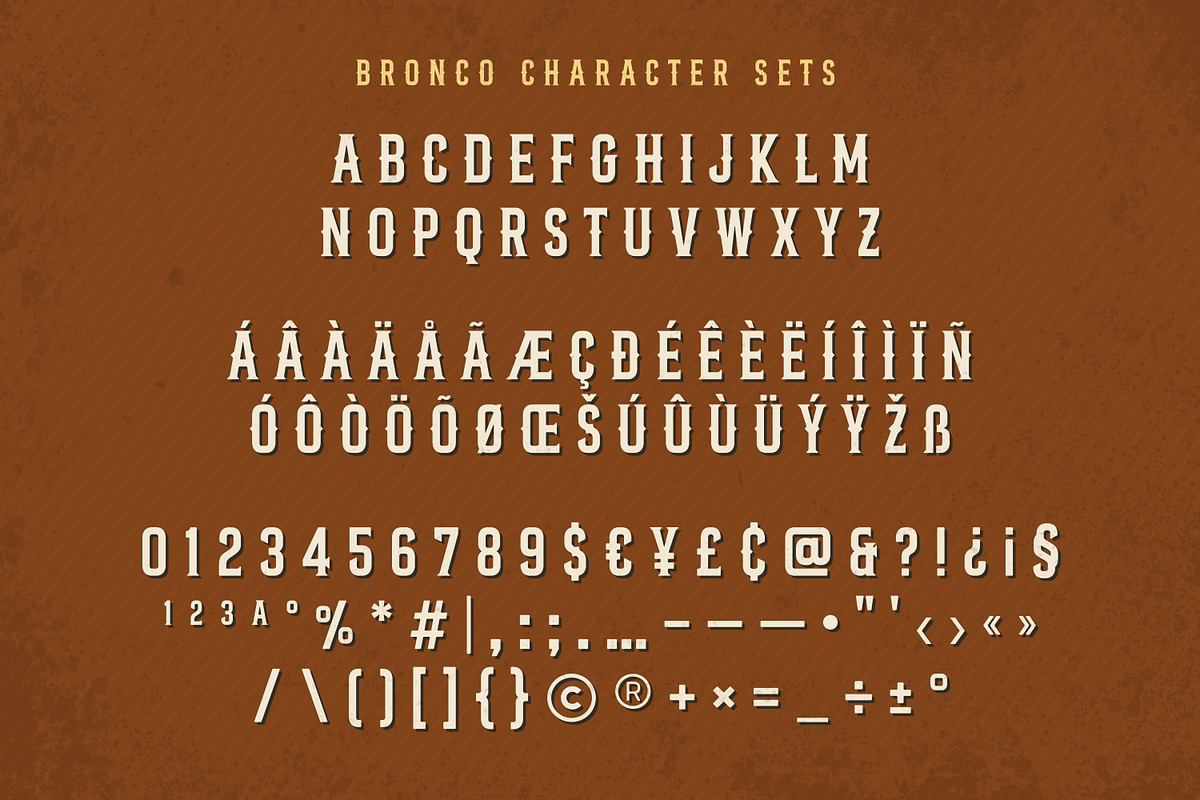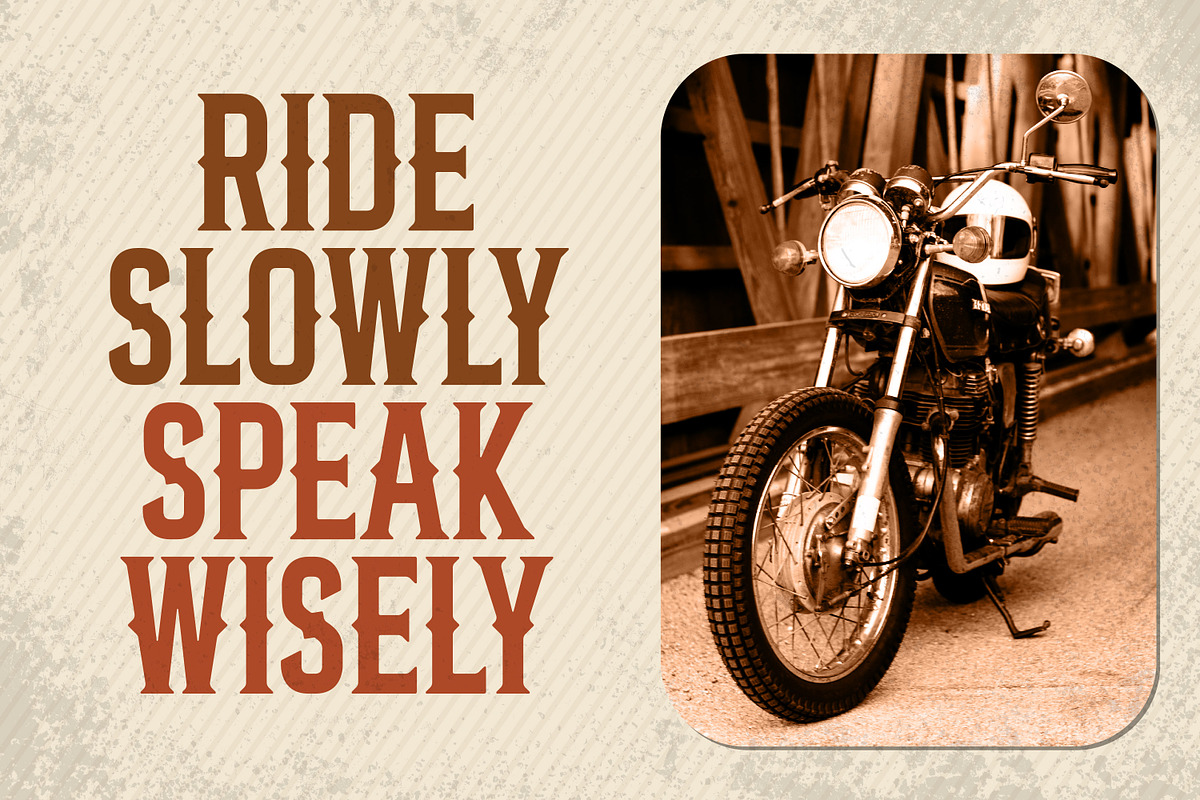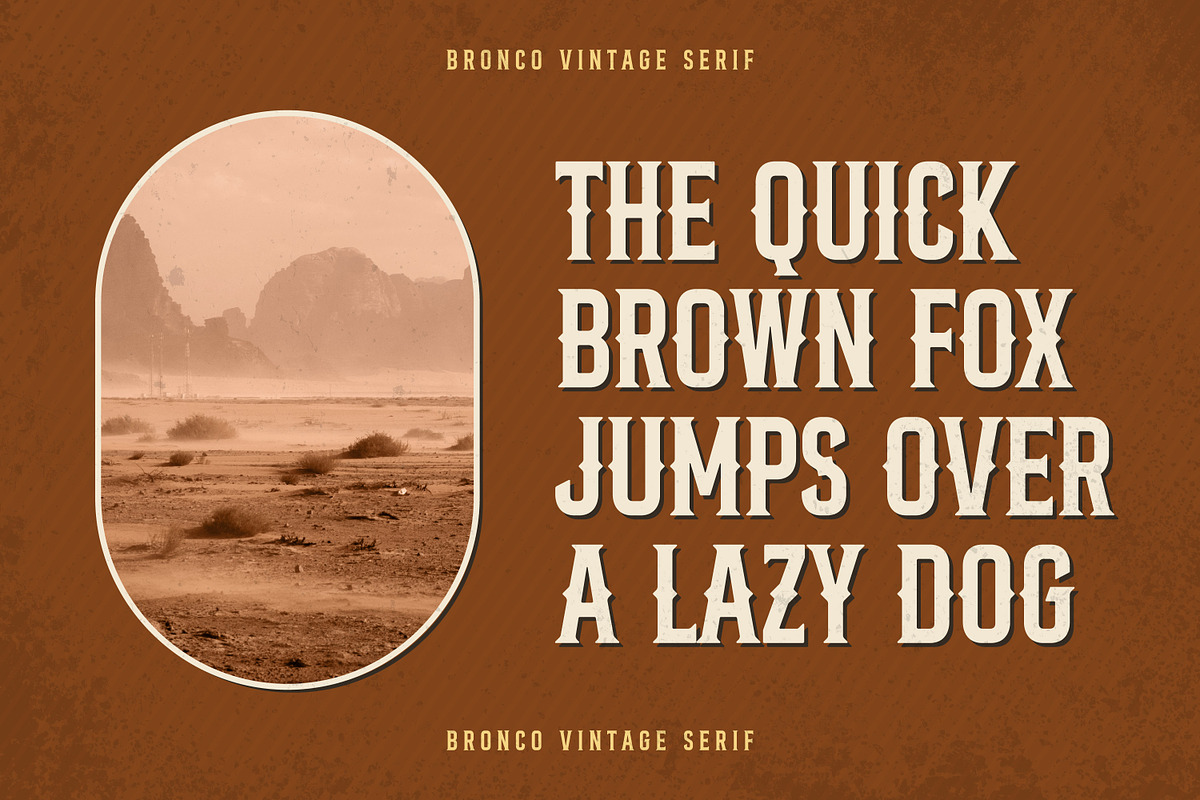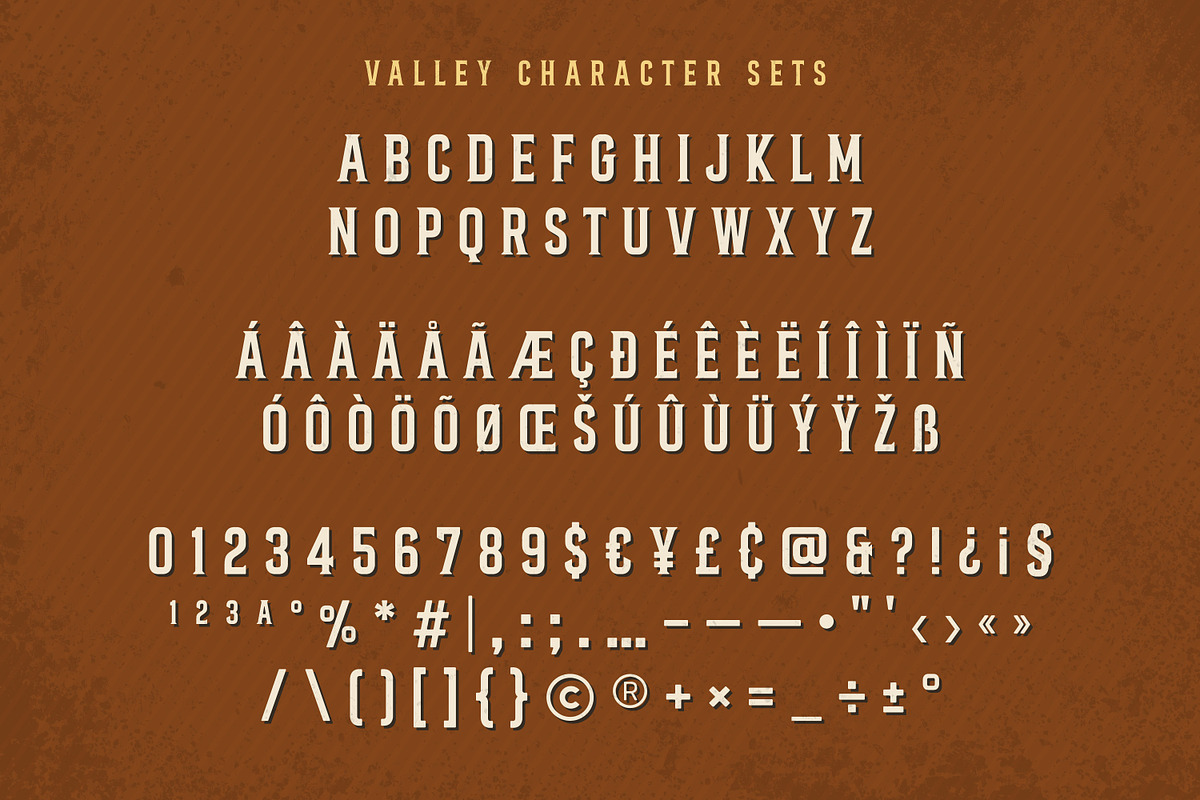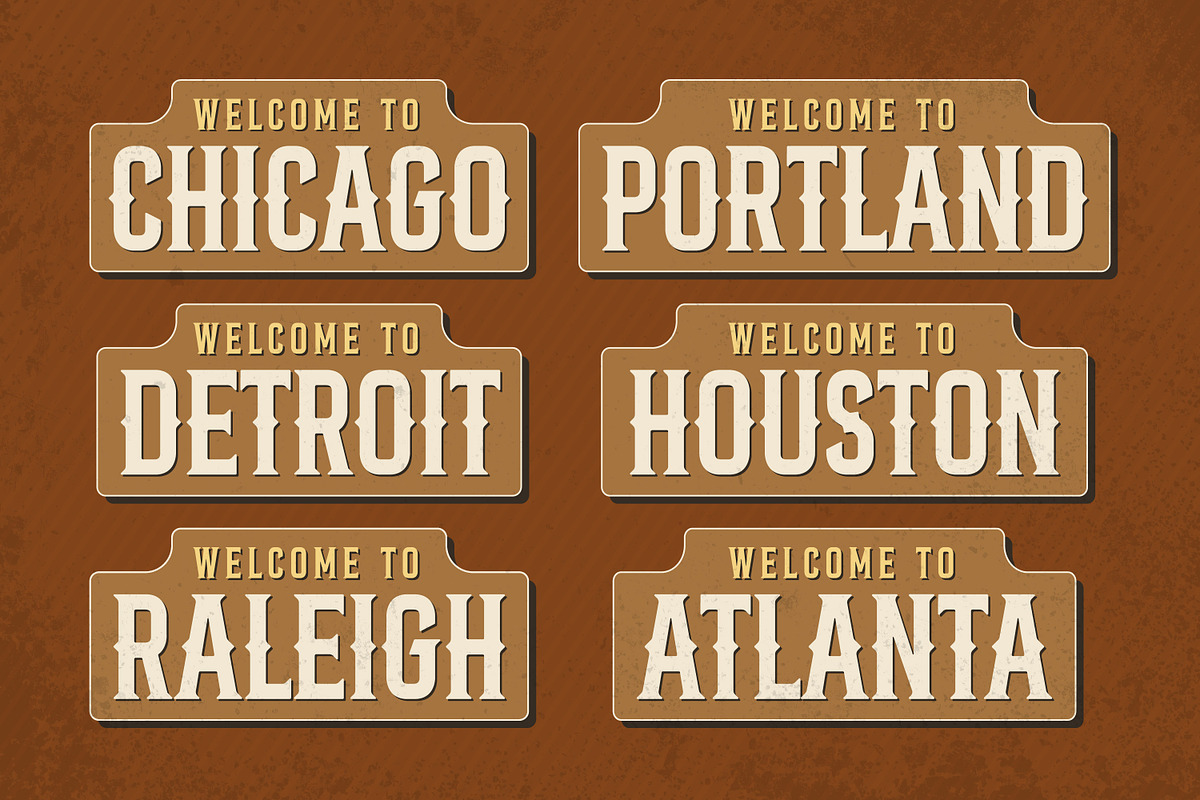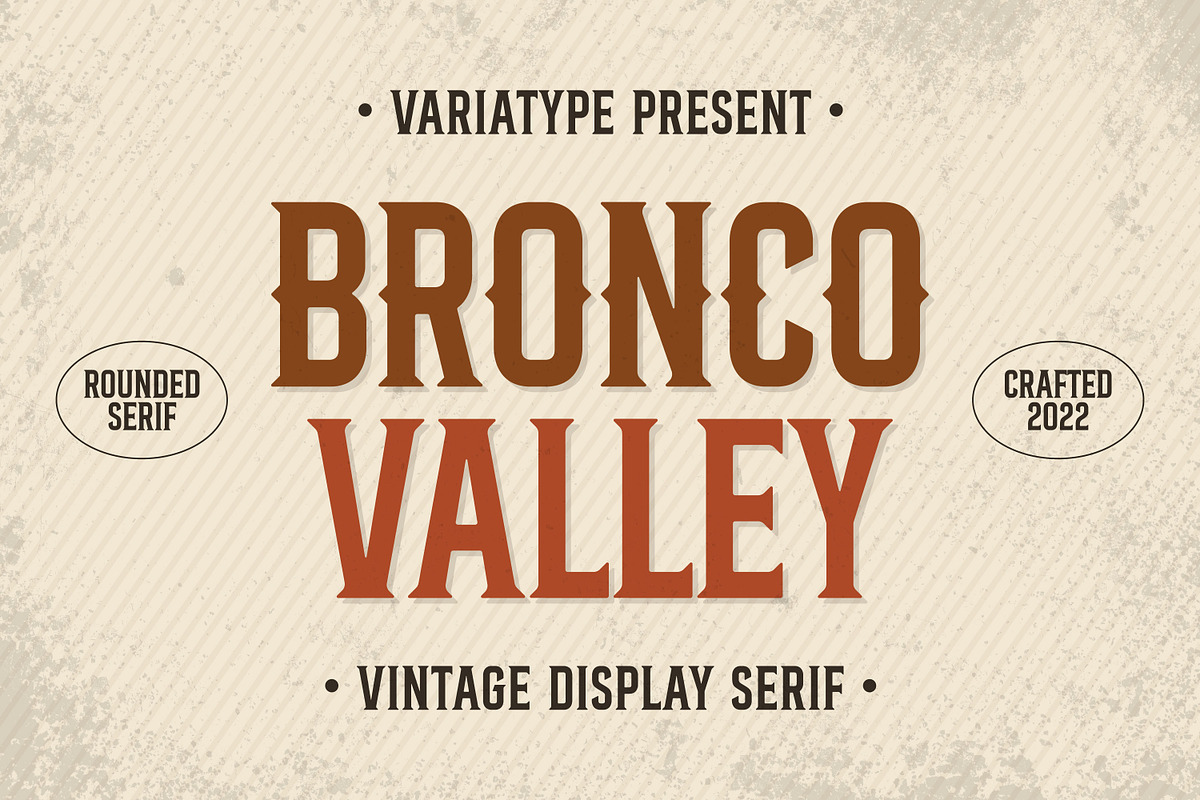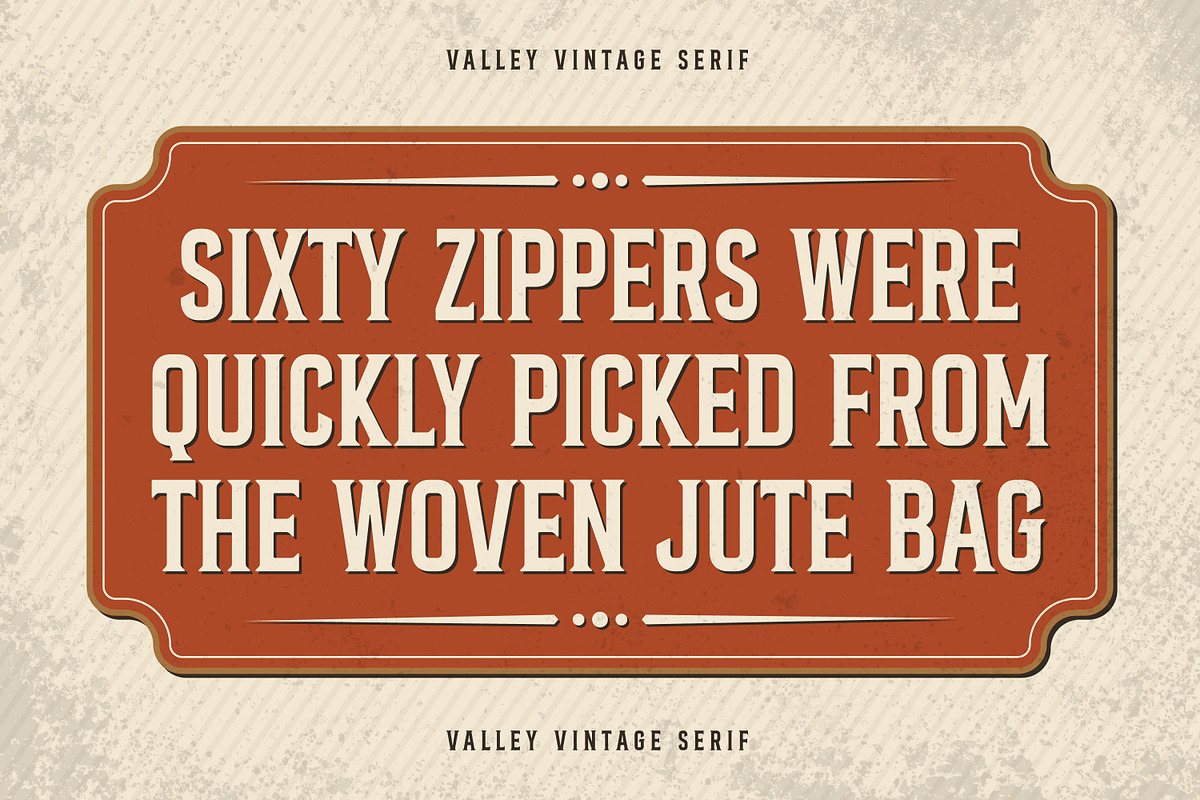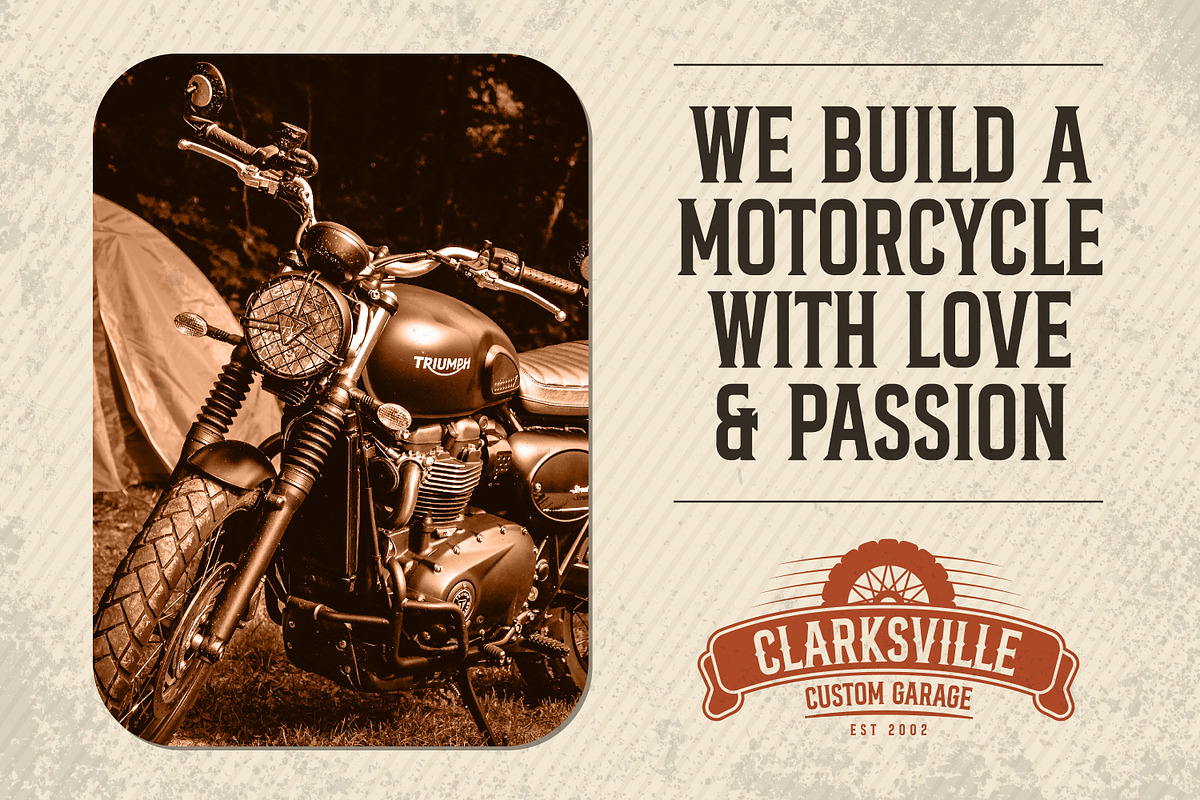
Bronco Valley - Vintage Serif
Bronco Valley is designed with vintage style or you can say “American Rodeo” for classic look branding, logotype, poster design, t-shirt design, and much more.
FONT FEATURES
Additional Accents
66 Languages
Kerning